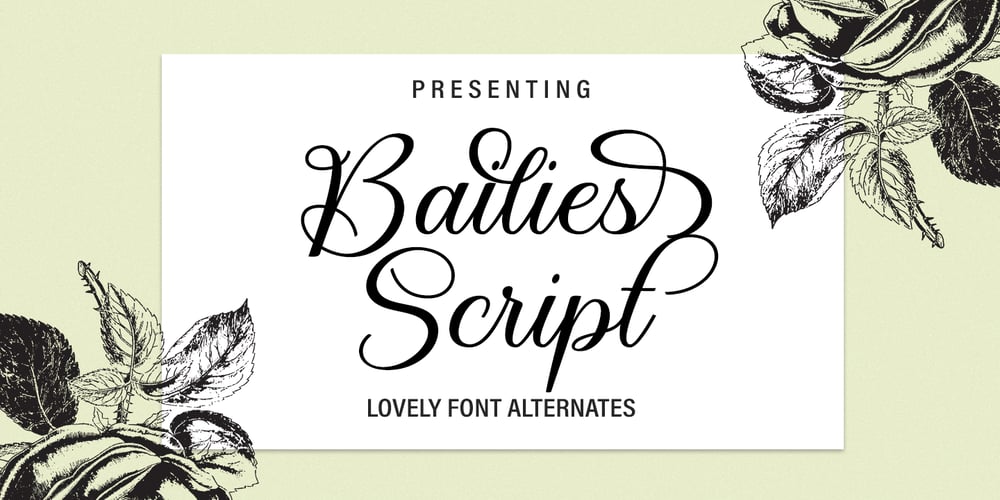
Bailies Script Font Family was designed by khaidir and published by Gatype. Bailies Script contains 1 styles and family package options. Bailies Script is a handwritten inspired font with an aesthetic touch.Bailies Script is versatile enough for web and print and can be used in projects such as stationery, packaging, clothing, wedding stationery, prints, quotes, social media graphics, planners, greeting cards, logos, branding and many more. .The script includes a set of uppercase characters, numbers, Alernates etc.To access alternative glyphs, you’ll need a program that supports OpenType features such as Adobe Illustrator CS and Adobe Indesign and PS.Have fun creating!Cheers!How to use the open type feature https://helpx.adobe.com/illustrator/using/special-characters.html